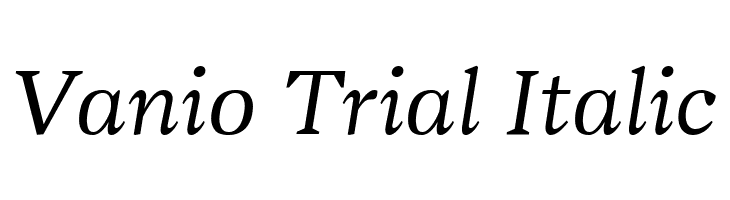
A bold, classic serif font with strong, thick strokes.
A bold, italic serif font with strong strokes and elegant movement.
An elegant italic font with smooth, flowing letterforms and a refined style.
A classic serif font with elegant strokes and pronounced serifs.